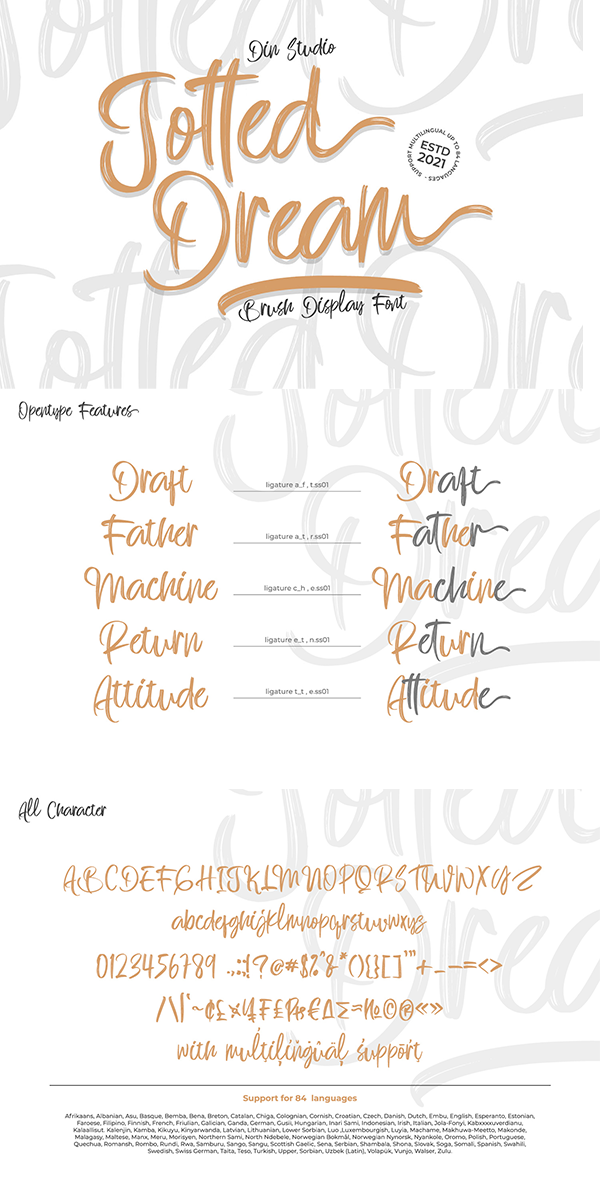
Jotted Dream Font
About Jotted Dream
Jotted Dream is a display brush combined with elegant brush style. Every swash, stroke, and curve is created to entice happiness and elegance. It is definitely a great choice for your logo, book cover, poster, t-shirt, branding, and advertisement needs.
-Swahes
Afrikaans, Albanian, Asu, Basque, Bemba, Bena, Breton, Catalan, Chiga, Colognian, Cornish, Croatian, Czech, Danish, Dutch, Embu, English, Esperanto, Estonian, Faroese, Filipino, Finnish, French, Friulian, Galician, Ganda, German, Gusii, Hungarian, Inari Sami, Indonesian, Irish, Italian, Jola-Fonyi, Kabuverdianu, Kalaallisut, Kalenjin, Kamba, Kikuyu, Kinyarwanda, Latvian, Lithuanian, Lower Sorbian, Luo, Luxembourgish, Luyia, Machame, Makhuwa-Meetto, Makonde, Malagasy, Maltese, Manx, Meru, Morisyen, Northern Sami, North Ndebele, Norwegian Bokmål, Norwegian Nynorsk, Nyankole, Oromo, Polish, Portuguese, Quechua, Romansh, Rombo, Rundi, Rwa, Samburu, Sango, Sangu, Scottish Gaelic, Sena, Serbian, Shambala, Shona, Slovak, Soga, Somali, Spanish, Swahili, Swedish, Swiss German, Taita, Teso, Turkish, Upper Sorbian, Uzbek (Latin), Volapük, Vunjo, Walser, Zulu